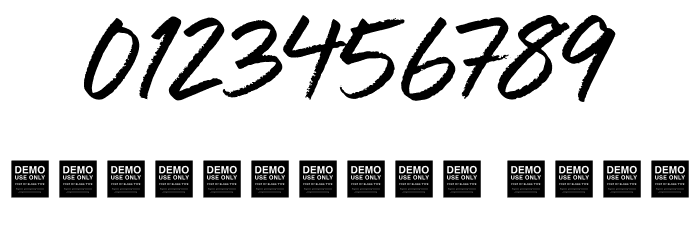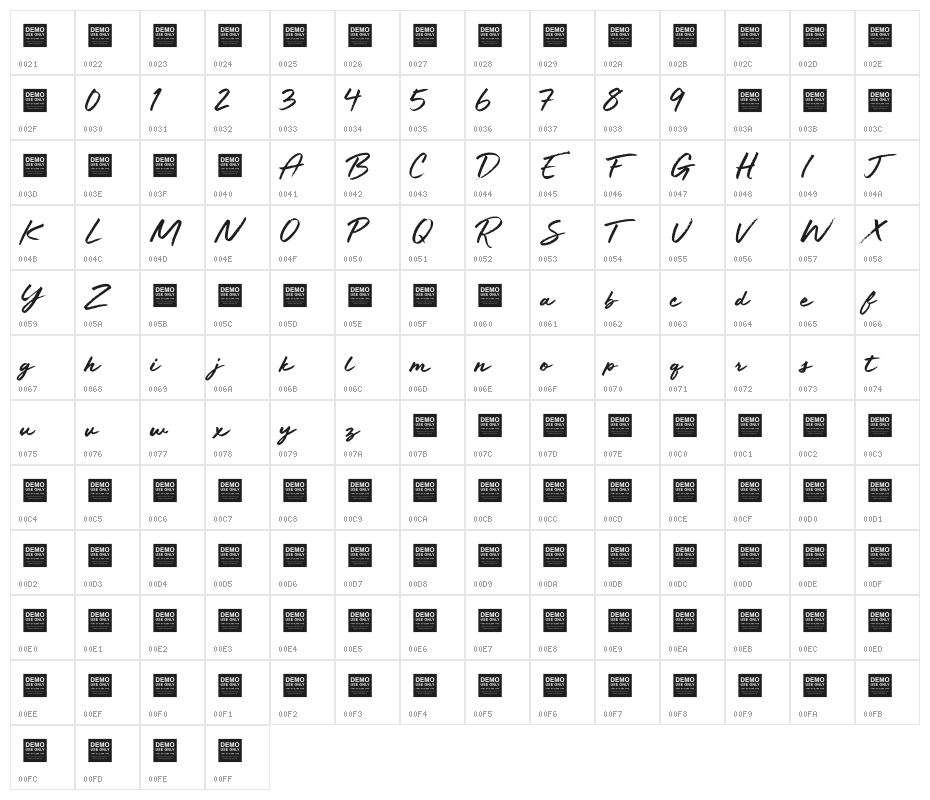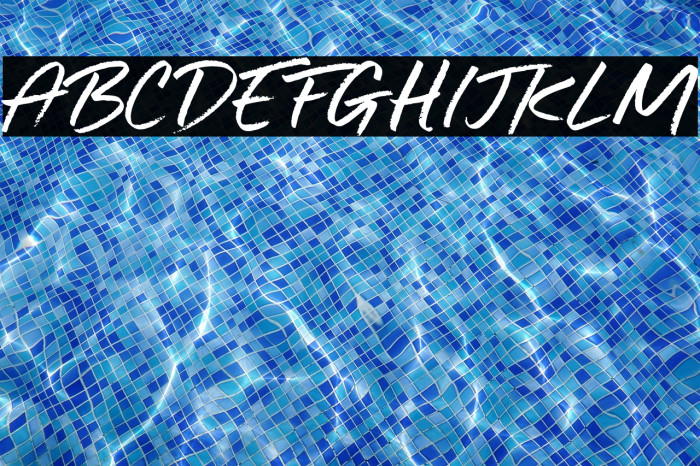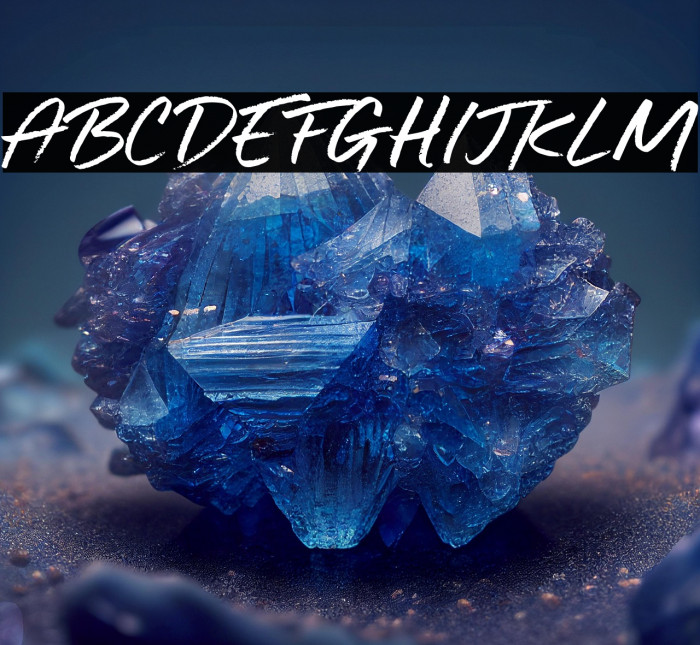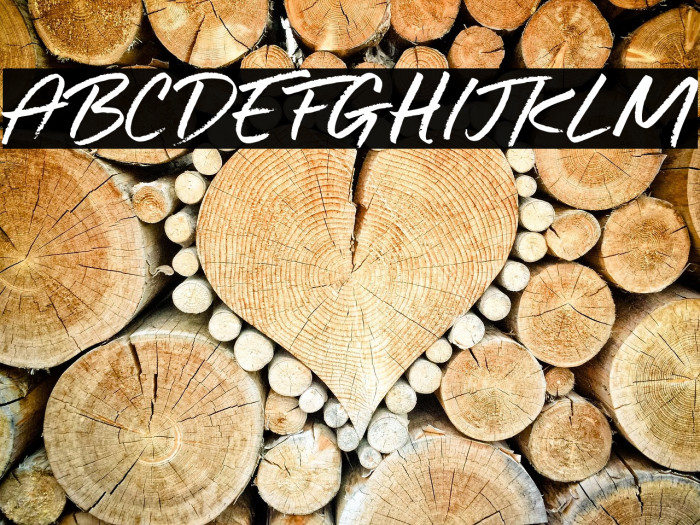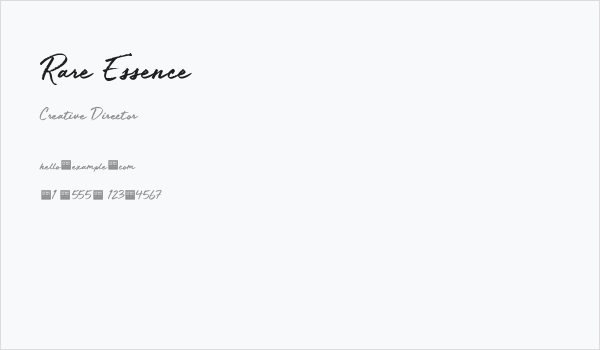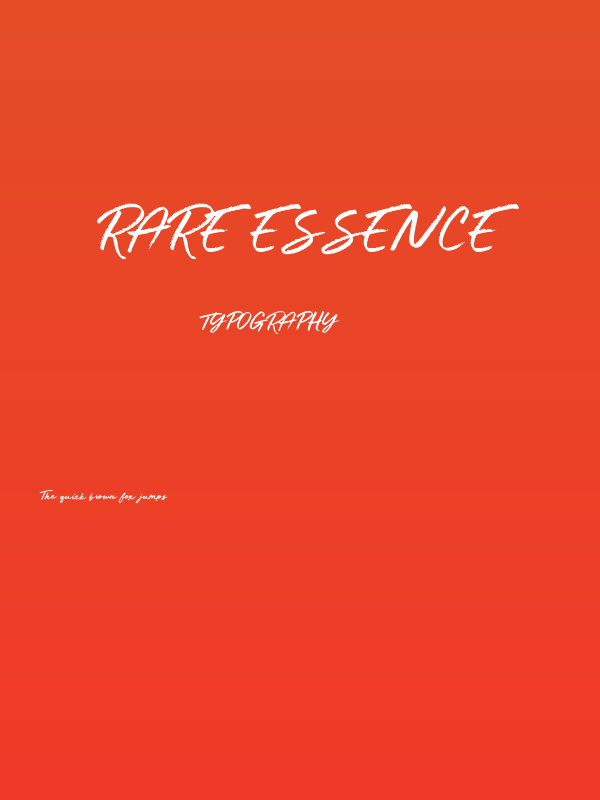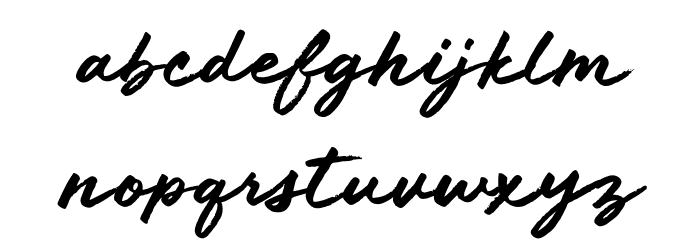
Rare Essence Font
Rare Essence Description
This font features a dynamic and energetic script style, characterized by its brush-like strokes and fluid motion. The letters are connected in a natural, flowing manner, giving it a handwritten appearance. The uppercase letters are bold and expressive, while the lowercase letters maintain a consistent rhythm and elegance. The numbers are equally stylized, matching the overall aesthetic of the font. This design is perfect for projects that require a personal touch, such as invitations, greeting cards, or branding materials. Its unique style makes it stand out, capturing attention with its artistic flair.